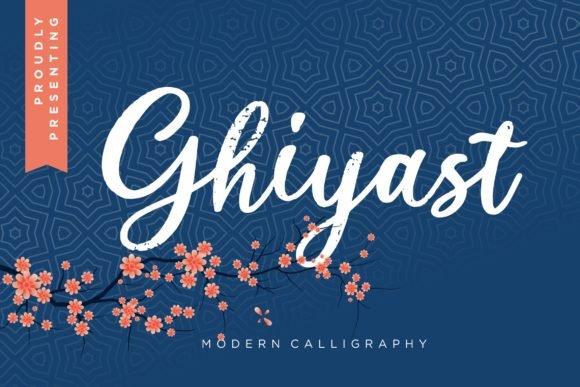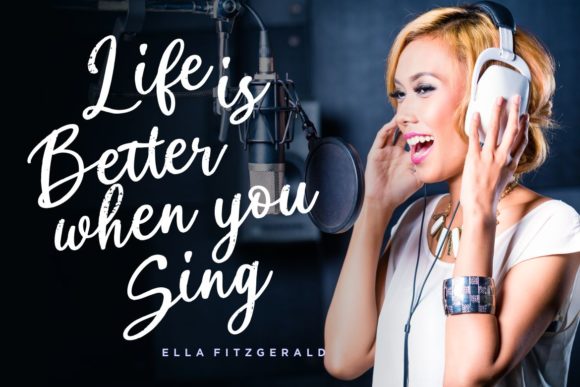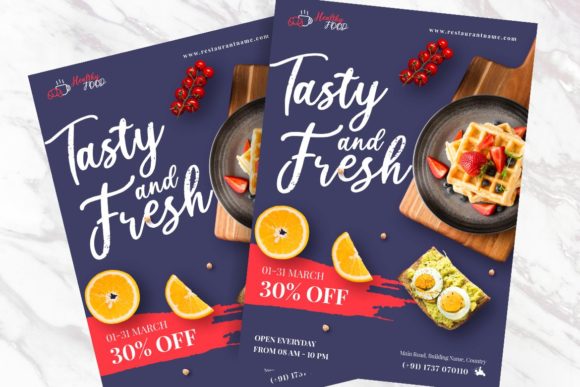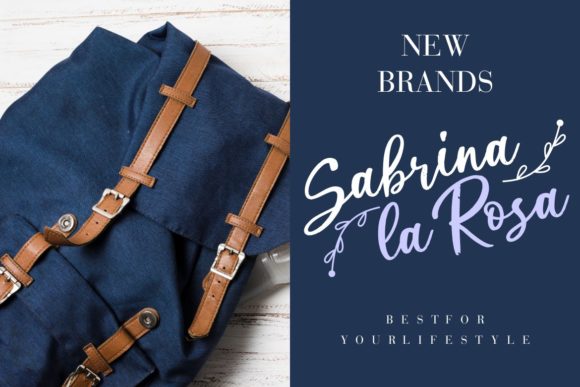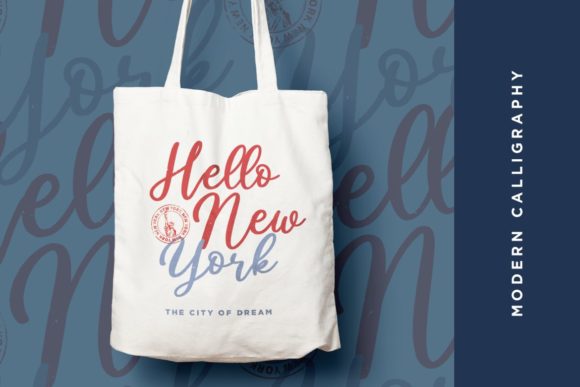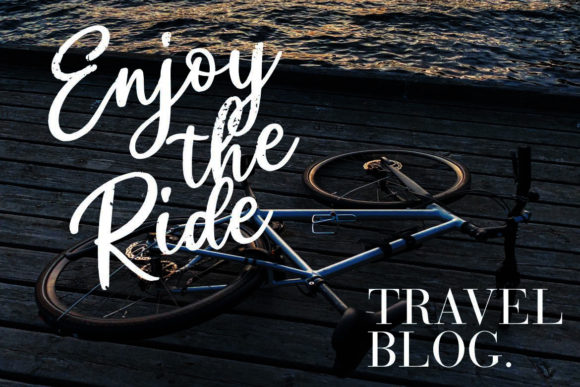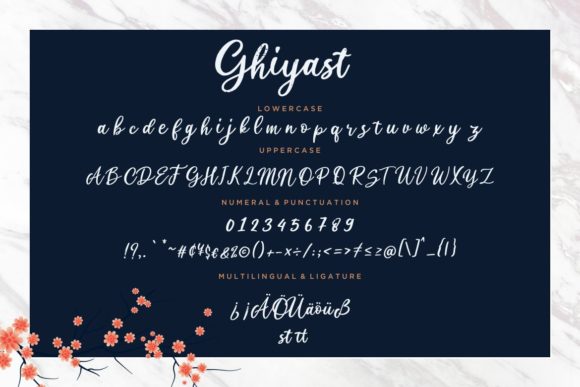
Unlock the Art of Elegant Typography with Ghiyast Font
Have you ever been brainstorming for a design project and suddenly, the perfect font pops into your mind? That’s exactly what happened to me when I stumbled upon the Ghiyast Font. Its flowing, handwritten style is nothing short of mesmerizing, and I knew right then that I had to share it with fellow designers.
The Ghiyast Font is a versatile and beautiful addition to any design project, perfect for achieving an exquisite yet subtle look. Whether you’re working on a wedding invitation, a brand identity, or a personal blog, this font is sure to elevate your design to the next level. What makes it truly valuable for designers is its effortless feel, which allows for maximum creativity and flexibility.
Ghiyast Font Key Features
- Font Family: Ghiyast is a Persian font family, designed to support the Persian language and its nuances.
- Unique Characteristics: The font features a unique blend of traditional and modern elements, resulting in a distinctive and elegant Persian typography.
- Language Support: Ghiyast Font supports the Persian language, as well as Latin characters, making it a versatile choice for multilingual designs.
Ghiyast Font Review
As a designer, I was excited to try out the Ghiyast Font, and I must say it’s a unique and interesting addition to my font library. Here’s what I think works well: ✨
- Beautiful calligraphy-inspired script: The Ghiyast Font has a stunning script that’s perfect for titles, headings, and other design elements where a touch of elegance is needed.
- Good legibility: Despite its decorative nature, the font is still easy to read, making it a great choice for body text and longer passages.
- High-quality design: The font’s design is well-crafted, with attention to detail and a consistent aesthetic throughout.
- Limited character set: The font’s character set is relatively small, which may limit its use for certain types of projects or languages.
- Not suitable for small text sizes: Due to its decorative nature, the font may become difficult to read at very small text sizes.
Overall, I think the Ghiyast Font is a great addition to any designer’s library, but it’s not a one-size-fits-all solution. It’s perfect for projects where a touch of elegance and sophistication is needed, but may not be the best choice for more straightforward or functional designs.
Getting the Most Out of the Ghiyast Font
Here are some tips for getting the most out of the Ghiyast Font:
- Use the Ghiyast Font for titles and headings to add a touch of elegance and sophistication.
- Combine the Ghiyast Font with other fonts to create a unique and eye-catching design.
The Ghiyast Font is ideal for:
- Luxury brand designs and marketing materials
Alternatives to Ghiyast Font for Designers
Scheherazade Font
Scheherazade is a beautiful, elegant script font that is perfect for creating luxurious and sophisticated designs. It features intricate connections and beautiful flourishes, making it ideal for use in high-end branding, advertising, and packaging design. Scheherazade is a more traditional and classic alternative to Ghiyast Font, with a similar exotic feel but a more refined and polished look.
Sholeh Font
Sholeh is a modern Persian script font that is highly versatile and can be used in a wide range of design projects. It features clean lines, geometric shapes, and a minimalistic aesthetic, making it perfect for use in digital products, websites, and social media graphics. Sholeh is a more contemporary alternative to Ghiyast Font, with a focus on simplicity and functionality.
Yagut Font
Yagut is a stunning calligraphic font that is inspired by traditional Islamic art and architecture. It features intricate geometric patterns, beautiful letterforms, and a sense of elegance and sophistication. Yagut is a more ornate and decorative alternative to Ghiyast Font, with a focus on creating a sense of drama and grandeur in designs.